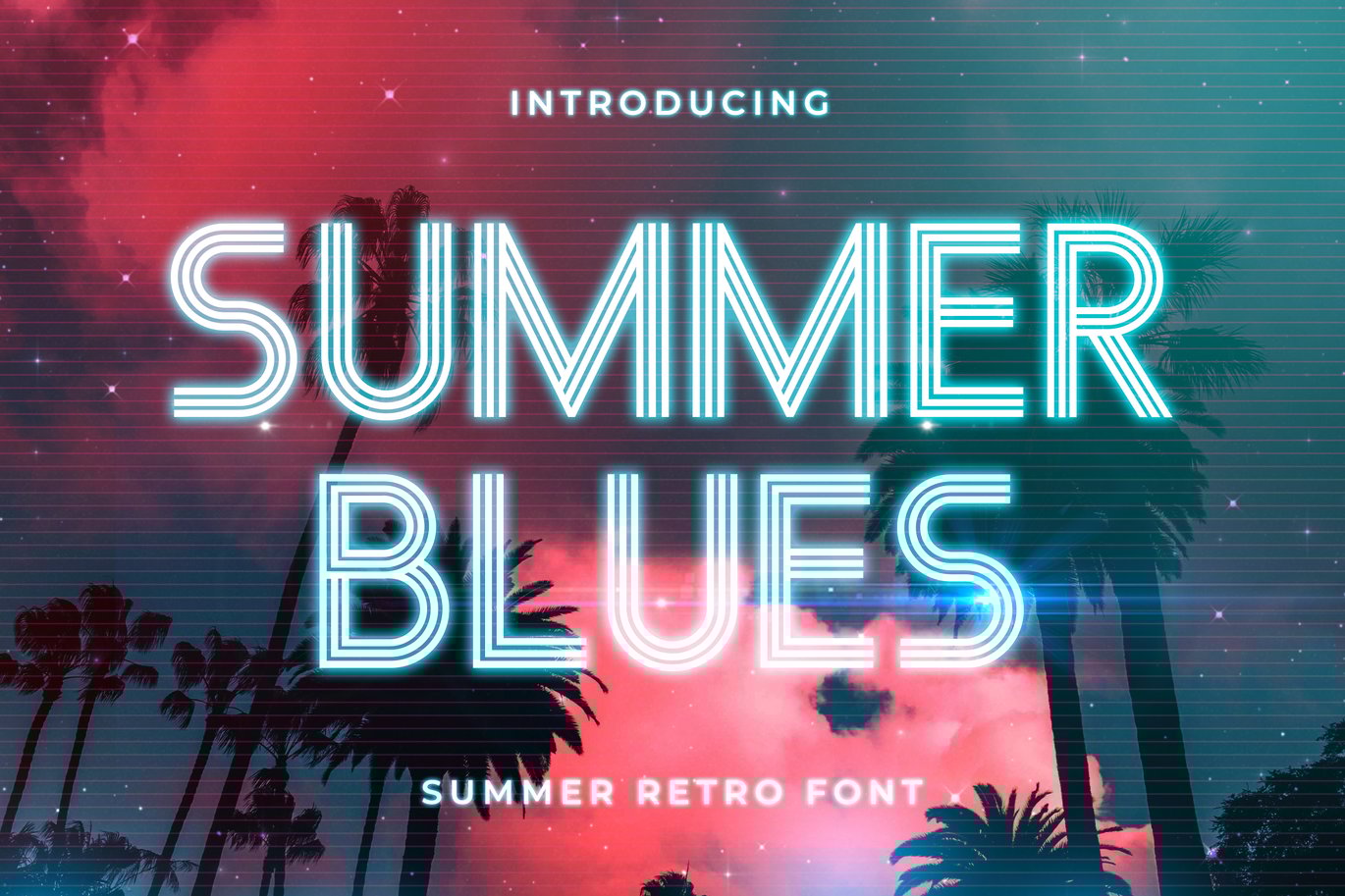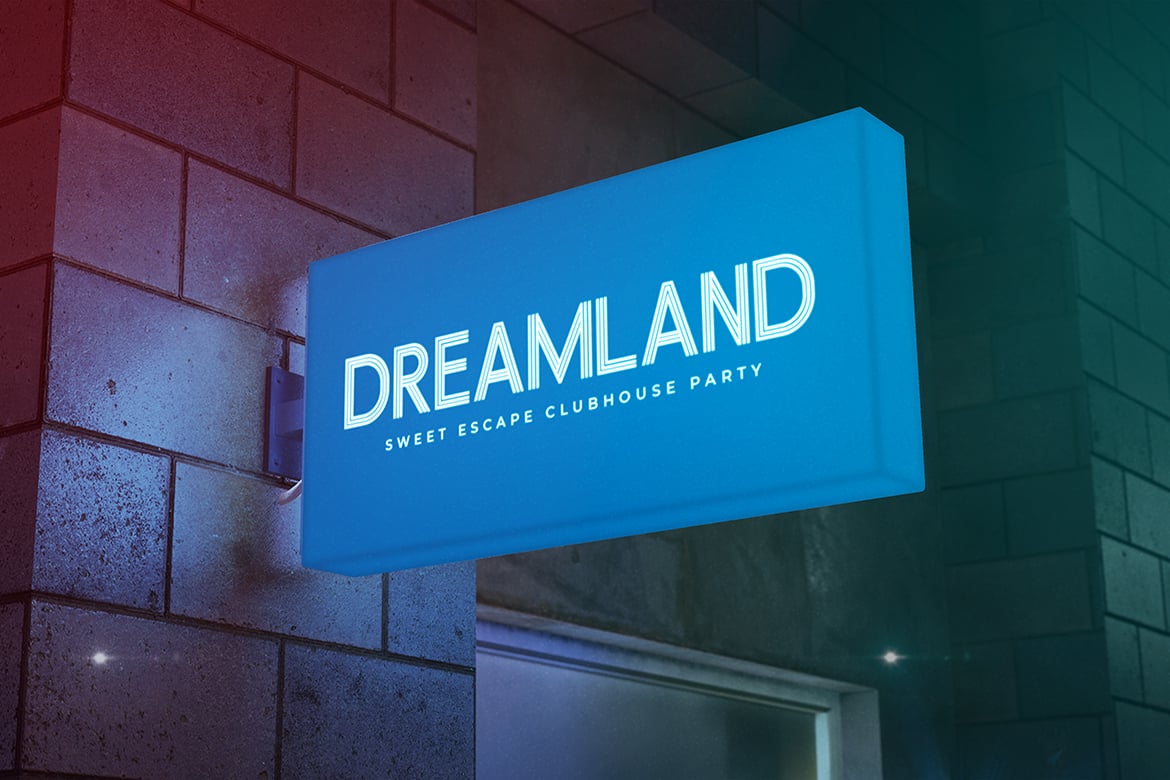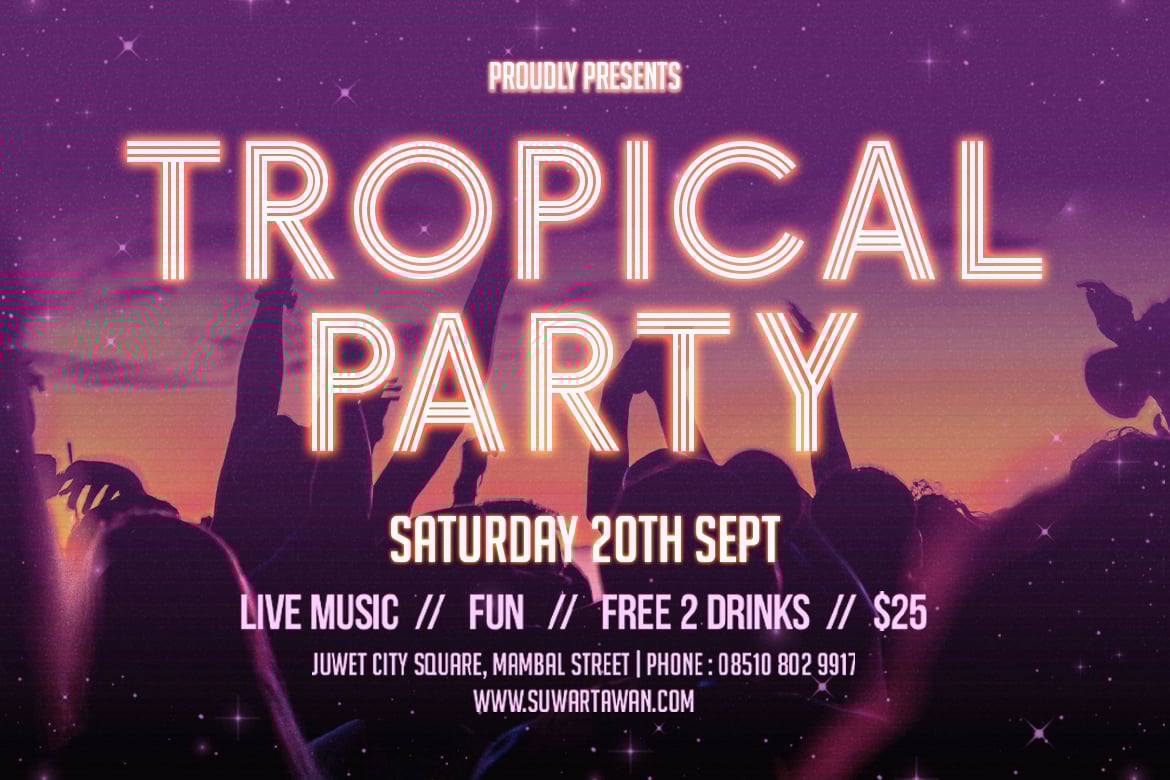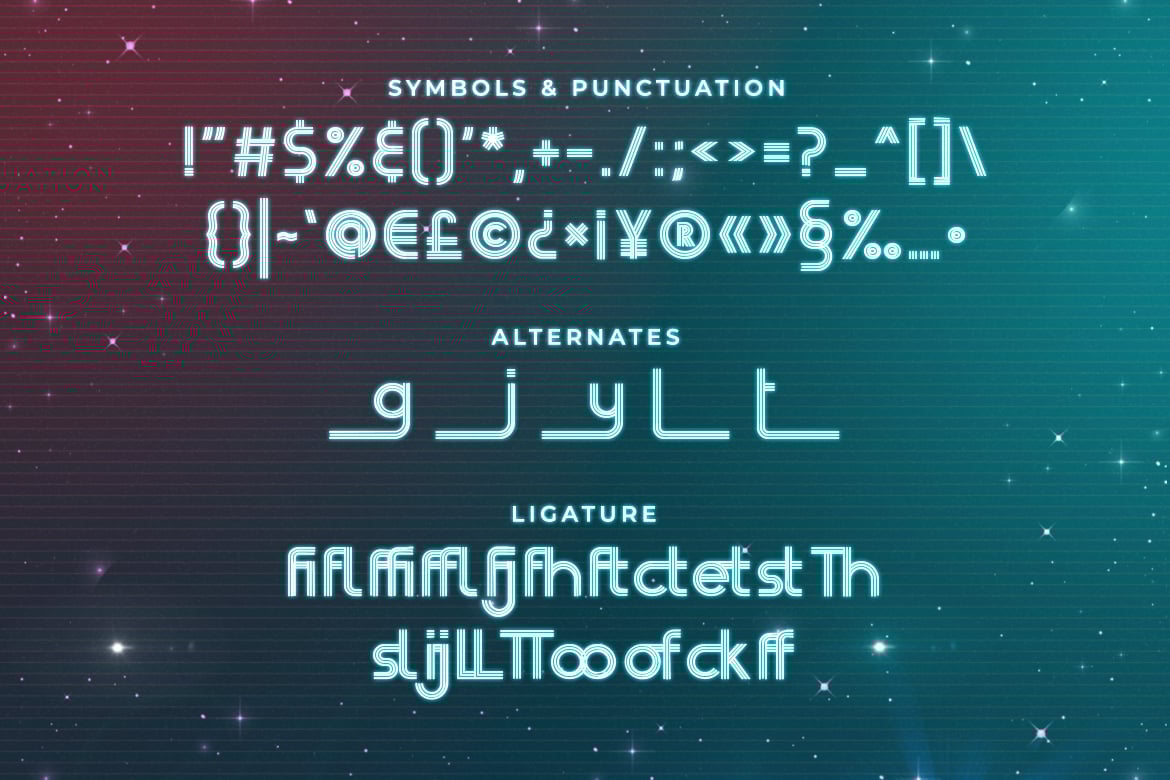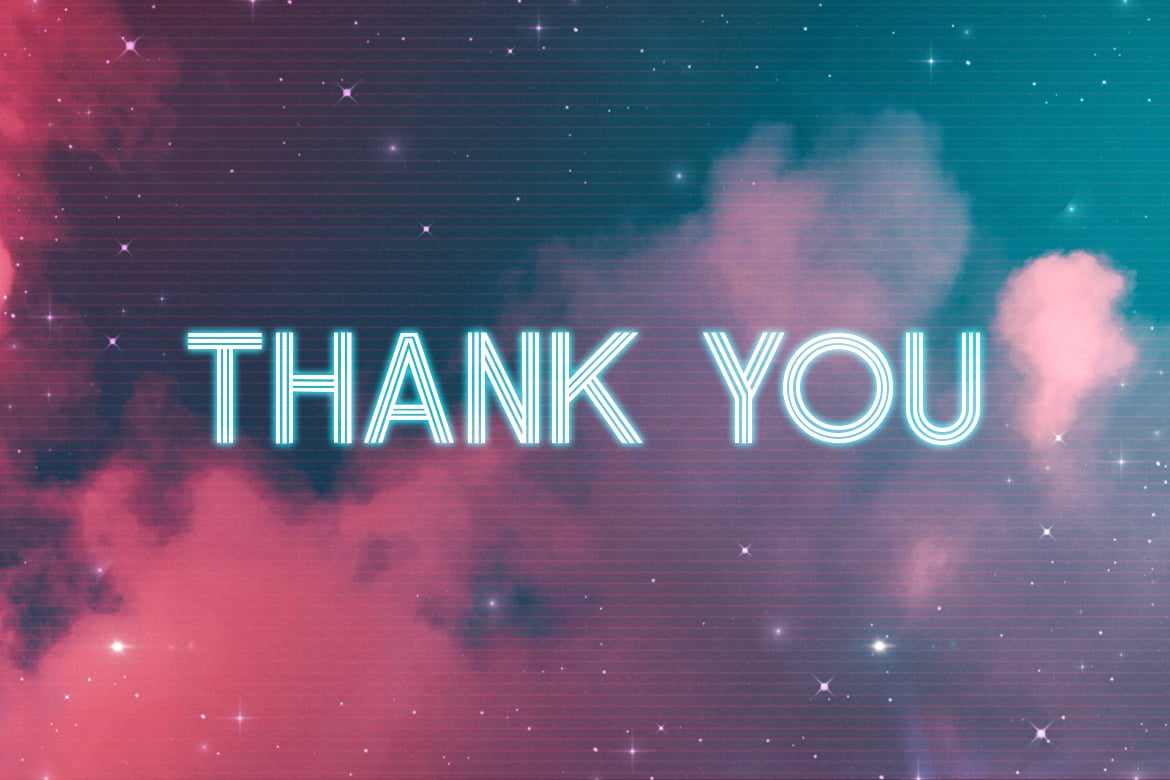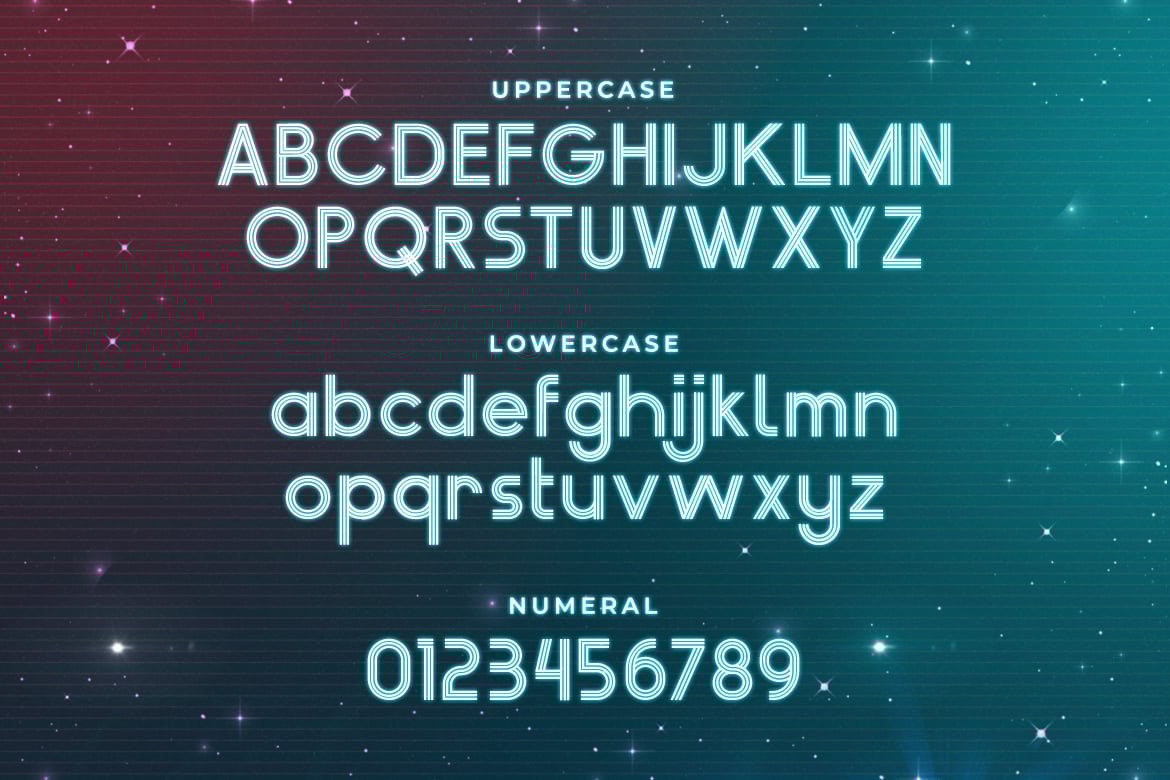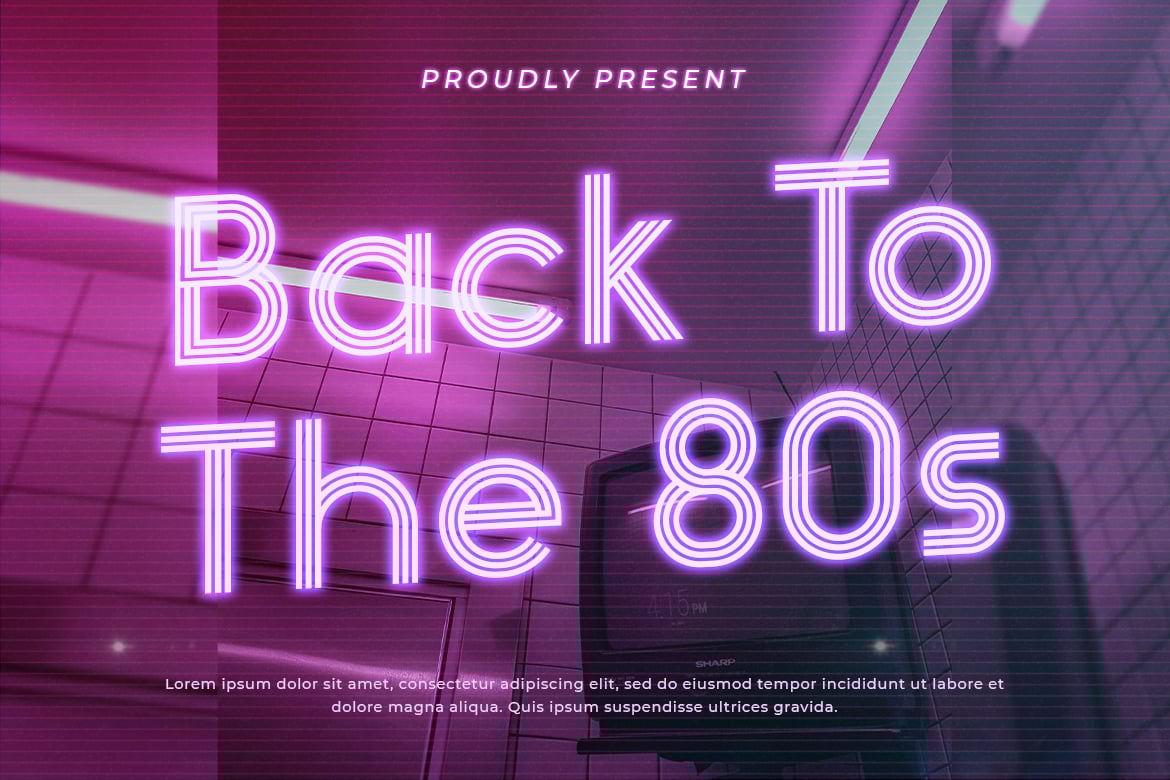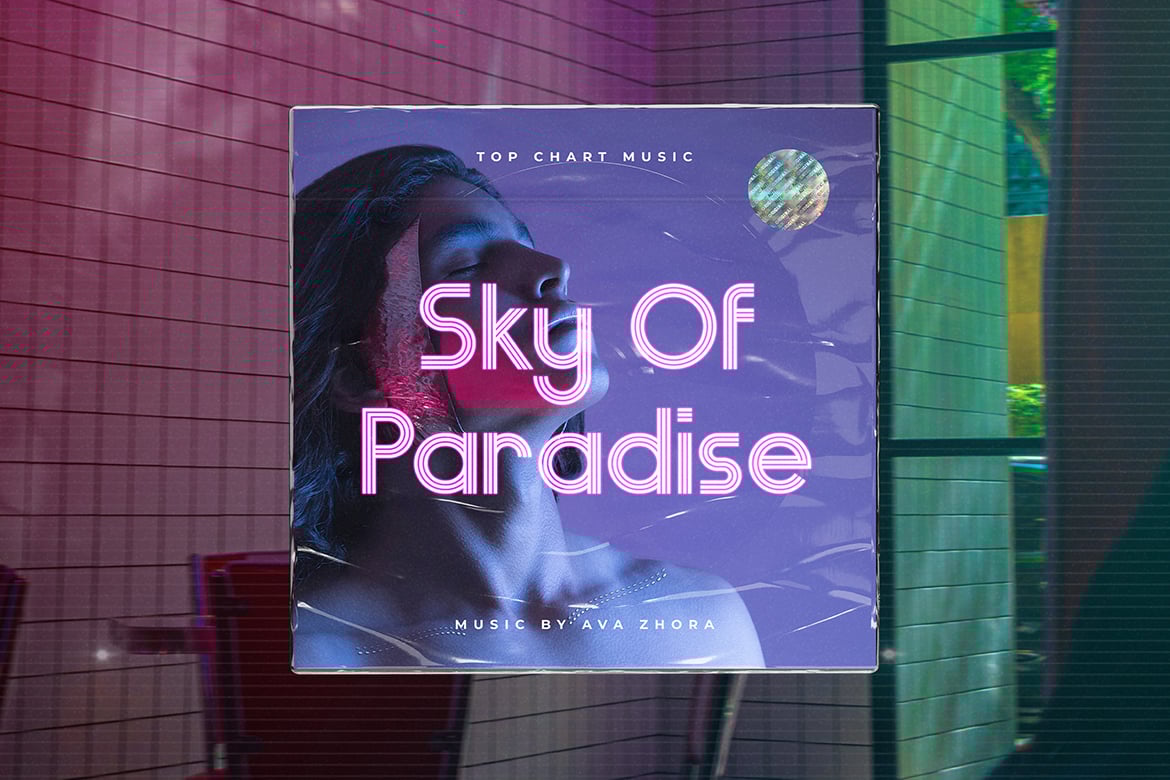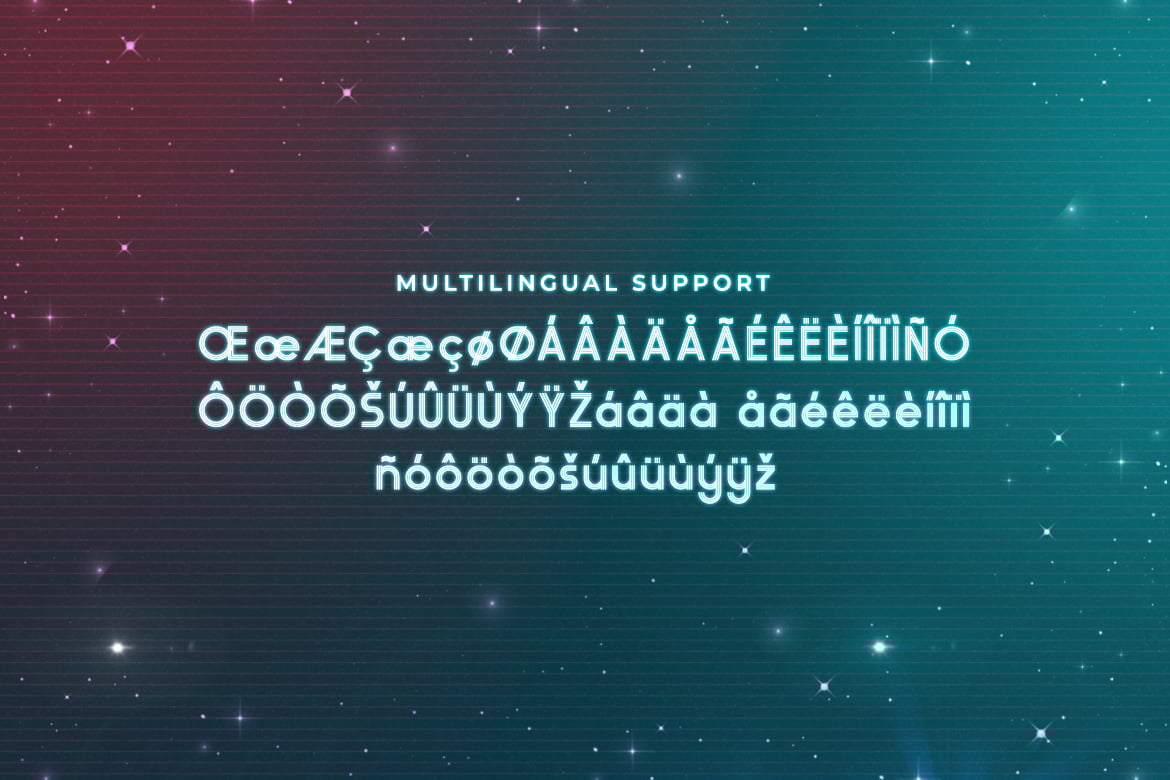
Summer Blues – Summer Retro Font
Summer Blues is a retro neon font with summer night theme.
It’s great for your store, branding, quote and title for magazine, film, or product design.